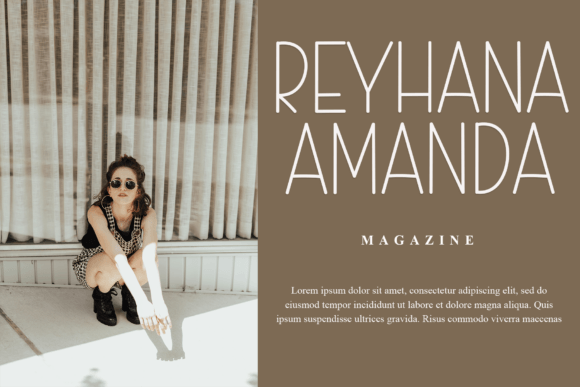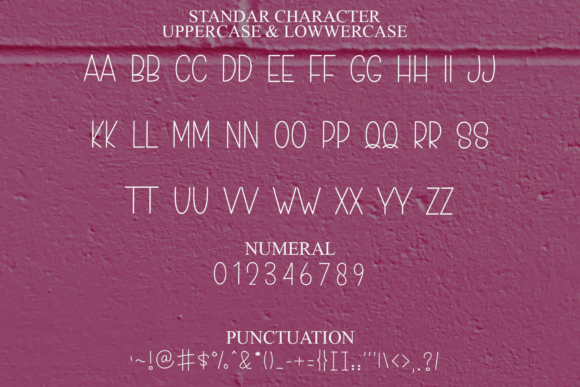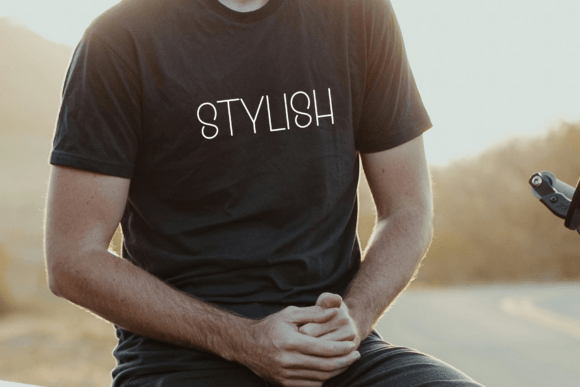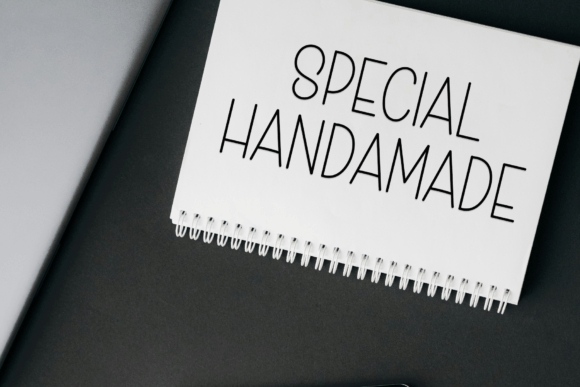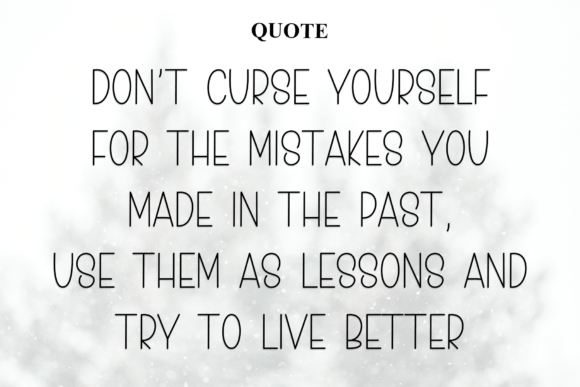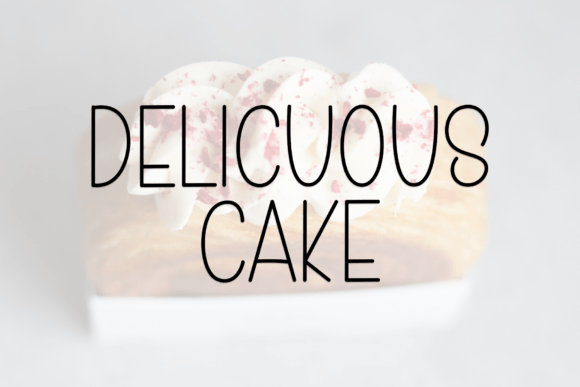
Discover the Sweet Charm of Butter Candy Font
You know that moment when you stumble upon a font that makes your design project feel like a dream come true? That’s exactly what happened when I discovered the enchanting Butter Candy Font. Its elegant, handwritten style had me hooked from the very start, and I knew I had to share it with the world.
Designed to evoke a sense of classic sophistication, the Butter Candy Font is perfect for designers who want to add a touch of warmth and personality to their projects. Whether you’re working on a wedding invitation, a food blog, or a children’s book, this font is sure to bring a smile to your face and elevate your design to new heights.
With its versatility and timeless charm, the Butter Candy Font is an invaluable addition to any designer’s toolkit. So why settle for ordinary when you can have extraordinary? Let’s dive in and explore the sweet world of Butter Candy Font together!
Butter Candy Font Key Features
- Font Family: Butter Candy Font is a sans-serif typeface designed for digital use.
- Font Size: The font comes in multiple weights ranging from 100 to 900, allowing for a wide range of typographic expressions.
- Resolution: Designed for high-resolution displays, making it ideal for modern digital applications and print materials.
- Unique Characteristics: Features a distinctive rounded edge and subtle curves, giving it a friendly and approachable feel.
Designer Review: Butter Candy Font
I recently had the chance to play around with the Butter Candy Font, and here’s my honest take on it.
- The Butter Candy Font has a unique, playful vibe that’s perfect for creating a whimsical or child-friendly atmosphere.
- The font is highly customizable, with a range of style options and effects that allow you to tweak it to your heart’s content.
- The font is well-suited for digital and print applications, making it a versatile choice for designers.
- The font may be a bit too over-the-top for more formal or professional applications.
- The sheer number of customization options can be overwhelming, making it difficult to find the perfect balance of style and readability.
Overall, the Butter Candy Font is a fun and creative choice for designers looking to add some personality to their projects. While it may not be the best fit for every design scenario, it’s certainly worth considering for the right project. With a bit of finesse, you can unlock the full potential of this charming font.
Tips for Getting the Most Out of Butter Candy Font
For the best results, pair Butter Candy Font with bold, bright colors and playful graphics. Use it for titles, headings, and other attention-grabbing text elements.
Butter Candy Font is perfect for:
- Playful advertising and marketing materials
Sophia Script
Sophia Script is a luxurious, elegant font that’s perfect for creating a high-end and sophisticated look. It’s ideal for luxury brands, fashion designs, and other high-end themes. Compared to Butter Candy Font, Sophia Script has a more formal and polished look, making it suitable for formal events and high-end marketing materials.
What is the recommended font size for using Butter Candy Font?
The recommended font size for using Butter Candy Font is between 12px and 24px, depending on the weight and style of the font. However, you can use the font at any size you like, and it will still look great. Just be sure to test the font at different sizes to ensure it looks good in your design.